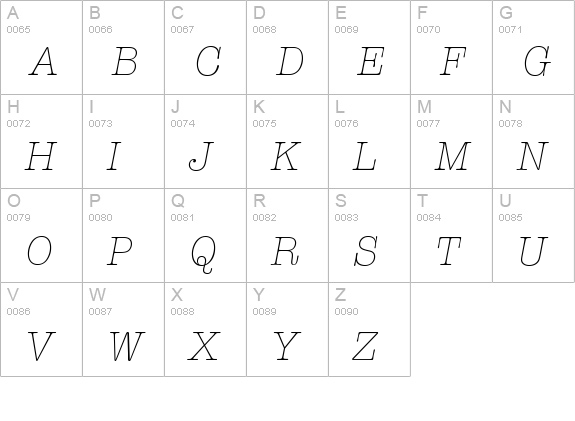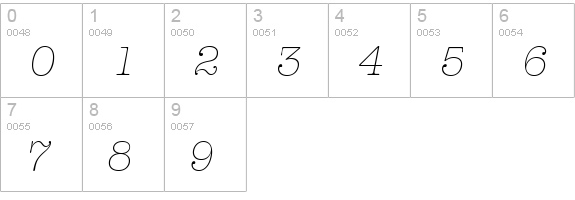
American Typewriter* Light Italic is a refined, elegant, italic variant in the American typeface family \xE2\x80\x94 well suited to elegant body text, refined sub-headings, and luxury branding.
American Typewriter Light Italic font is a timeless and versatile typeface that combines the classic elegance of traditional typewriters with a modern touch. With its sleek and slender design, this font exudes sophistication and professionalism, making it perfect for a wide range of projects. The Light Italic style adds a subtle slant to the characters, giving them a dynamic and stylish appearance. Whether you're designing a sleek logo, crafting an elegant invitation, or creating a professional document, American Typewriter Light Italic font is sure to make a lasting impression. Best of all, this stunning font is available for free download at FontsMarket.com. Don't miss out on the opportunity to add this exceptional typeface to your collection. Download American Typewriter Light Italic font today and elevate your designs to the next level.